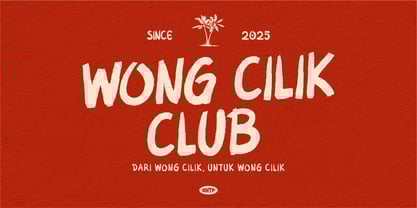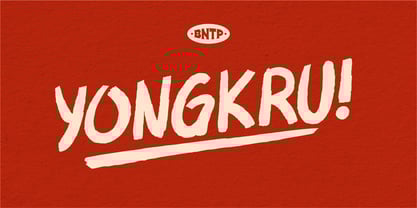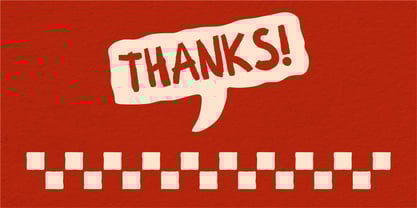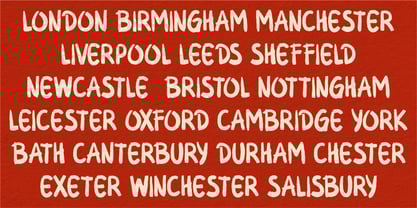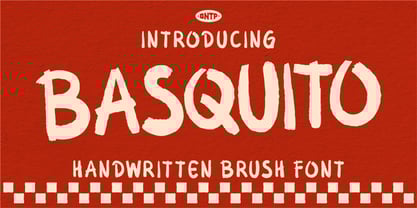
Basquito
by Bentype
The Basquito Font Family was designed by Muhammad Farkhan and published by Bentype. Basquito contains 1 styles.
Basquito - Handwritten Brush Font is a unique typeface handcrafted with a brush and ink, giving it an authentic, raw, and organic feel. Its bold strokes and textured details highlight a strong grunge aesthetic while still carrying an artistic expression that feels lively and energetic. With its versatile style, this font is highly suitable for poster design, t-shirts, branding projects, packaging, album covers, and a wide range of other creative artworks that demand a striking and expressive visual impact. Features : Allcaps Numbers and punctuation Feel free to contact us if you have any questions..
Designers: Muhammad Farkhan
Publisher: Bentype
Foundry: Bentype
Design Owner: Bentype